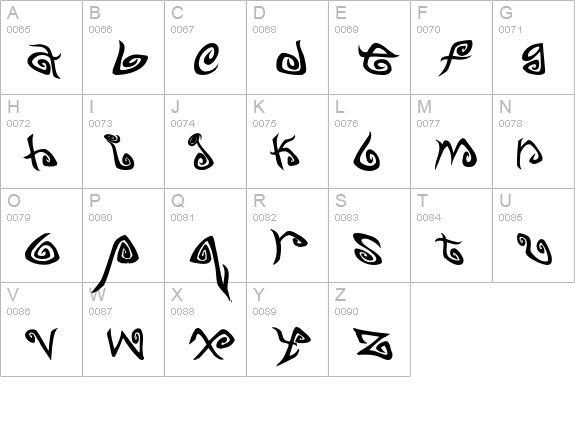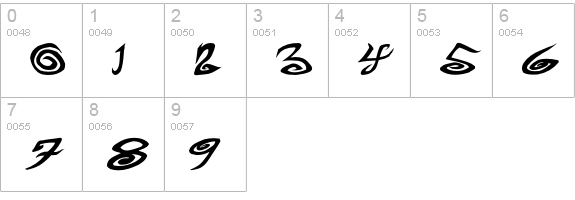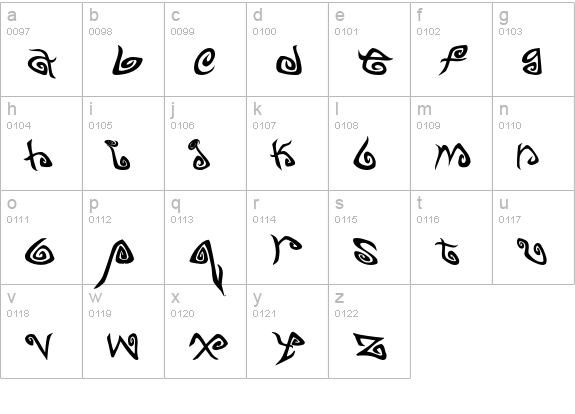
TWIRLZ Font Details
Introducing TWIRLZ font, a captivating and whimsical typeface that will surely add a touch of playfulness to any project. With its elegant curves and flowing lines, TWIRLZ captures the essence of joy and creativity, making it the perfect choice for designs that seek to evoke a sense of childlike wonder. This enchanting font is not only visually stunning but also highly versatile, making it suitable for a wide range of applications. Whether you're designing a logo, crafting invitations, or creating eye-catching headlines, TWIRLZ will effortlessly elevate your work to new heights. What's even more exciting is that TWIRLZ font is available for free! That's right, you can now download this delightful typeface at FontsMarket.com and start incorporating its magical charm into your designs without having to spend a dime. This generous offer allows you to embrace the beauty of TWIRLZ without any barriers, making it accessible to designers and enthusiasts alike. So why wait? Unleash your creativity and let TWIRLZ font transport you to a world of imagination and wonder. Download it for free at FontsMarket.com and let your designs dance with joy.